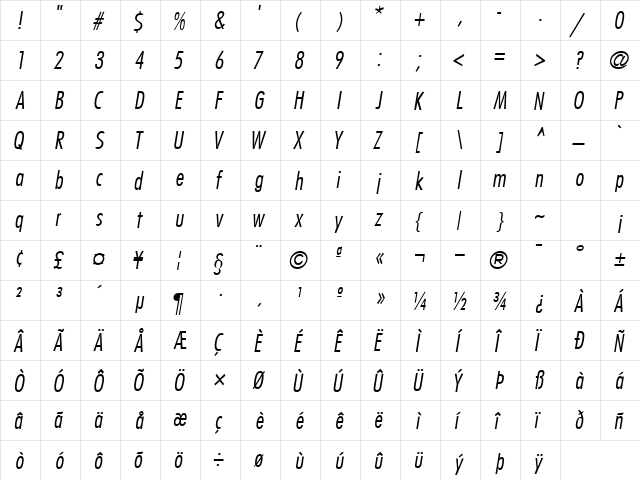
KudosLightCondSSK Bold Italic Font Preview
Design Context for KudosLightCondSSK Typeface
KudosLightCondSSK is a composed and adaptable typeface that performs quietly and consistently across a wide range of design contexts. The dynamic lean of this cut emphasises speed and emphasis in any layout. Its bold stroke weight gives it real presence on the page. Its narrow stance lets it pack a punch even in space-constrained designs.
Pro Tip: Use KudosLightCondSSK for emphasis, pull quotes, and subheadings where its slanted energy can add rhythm to the layout.